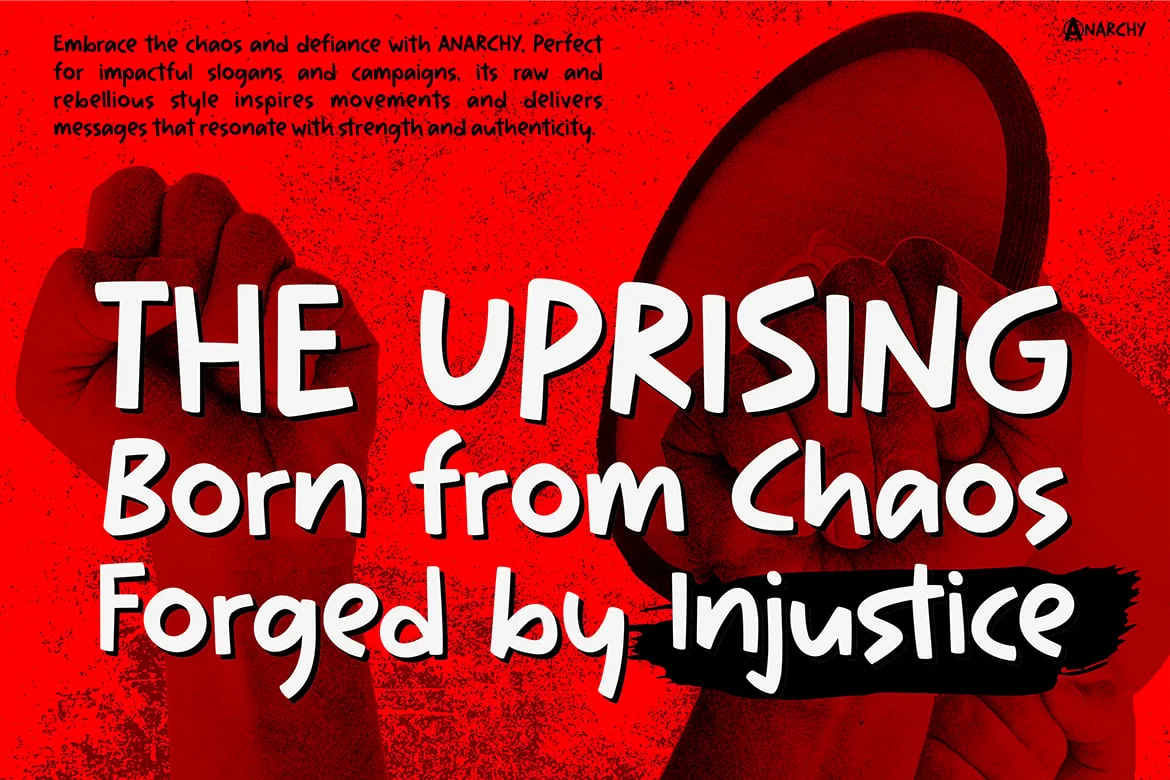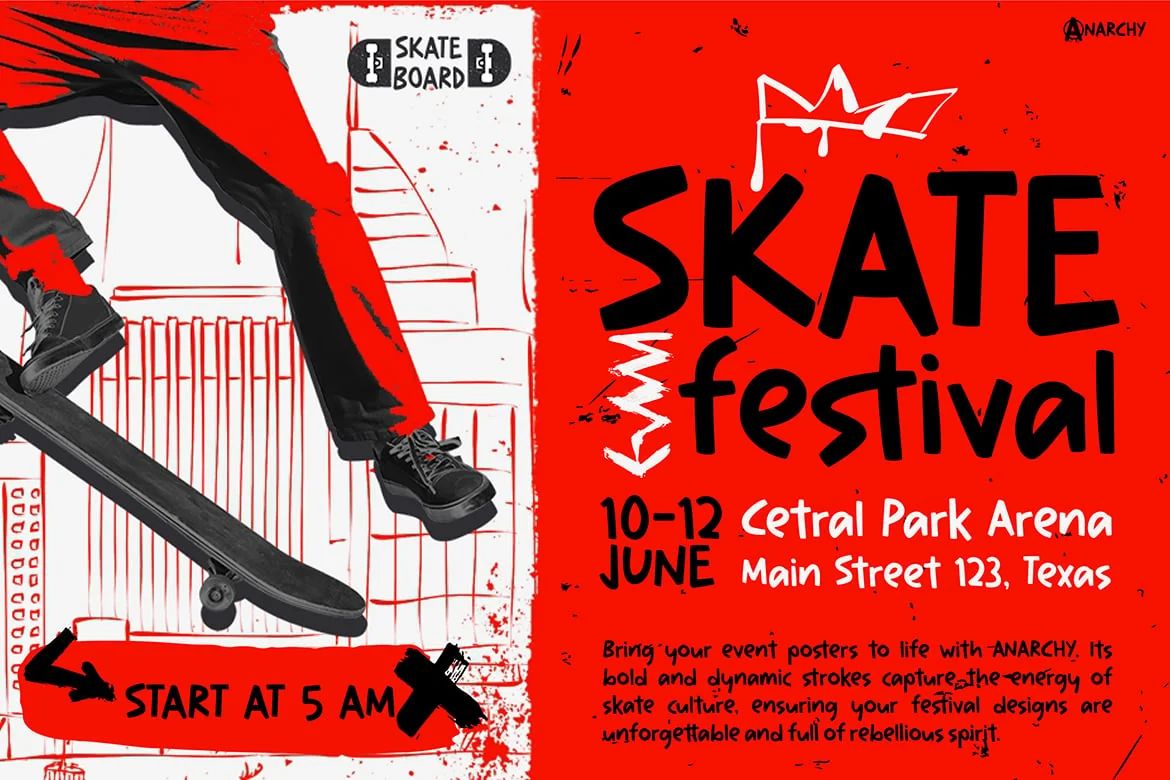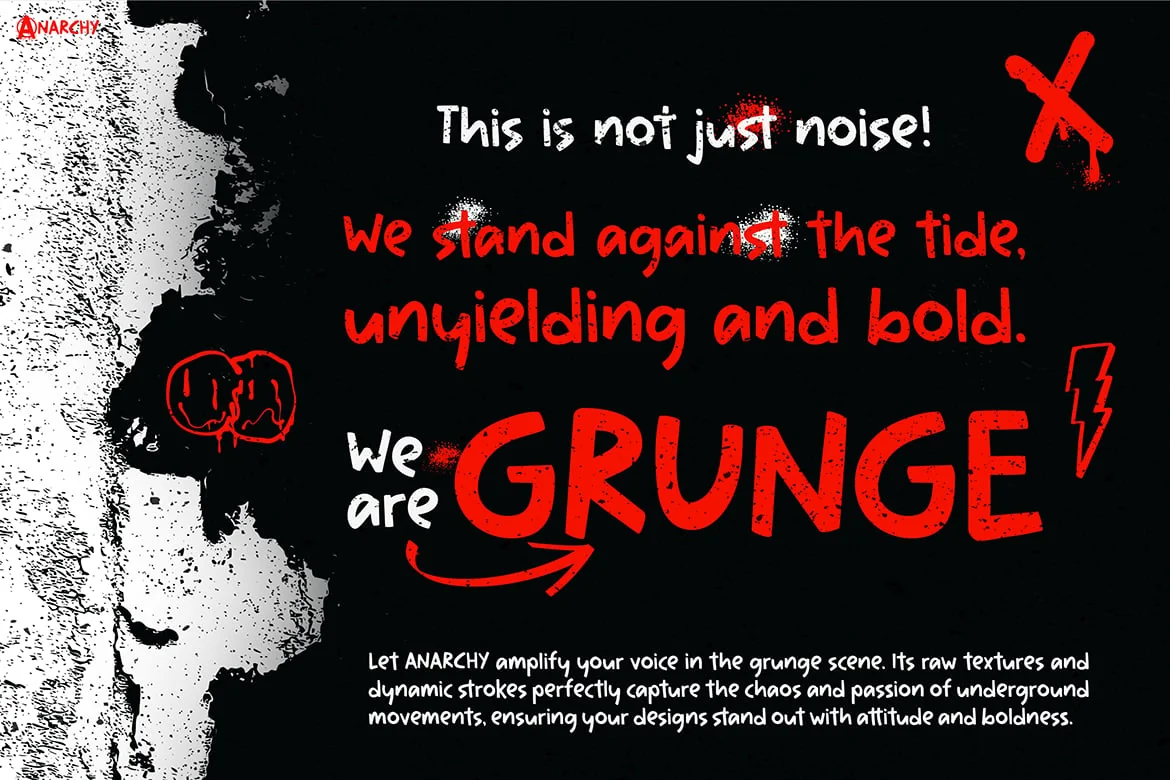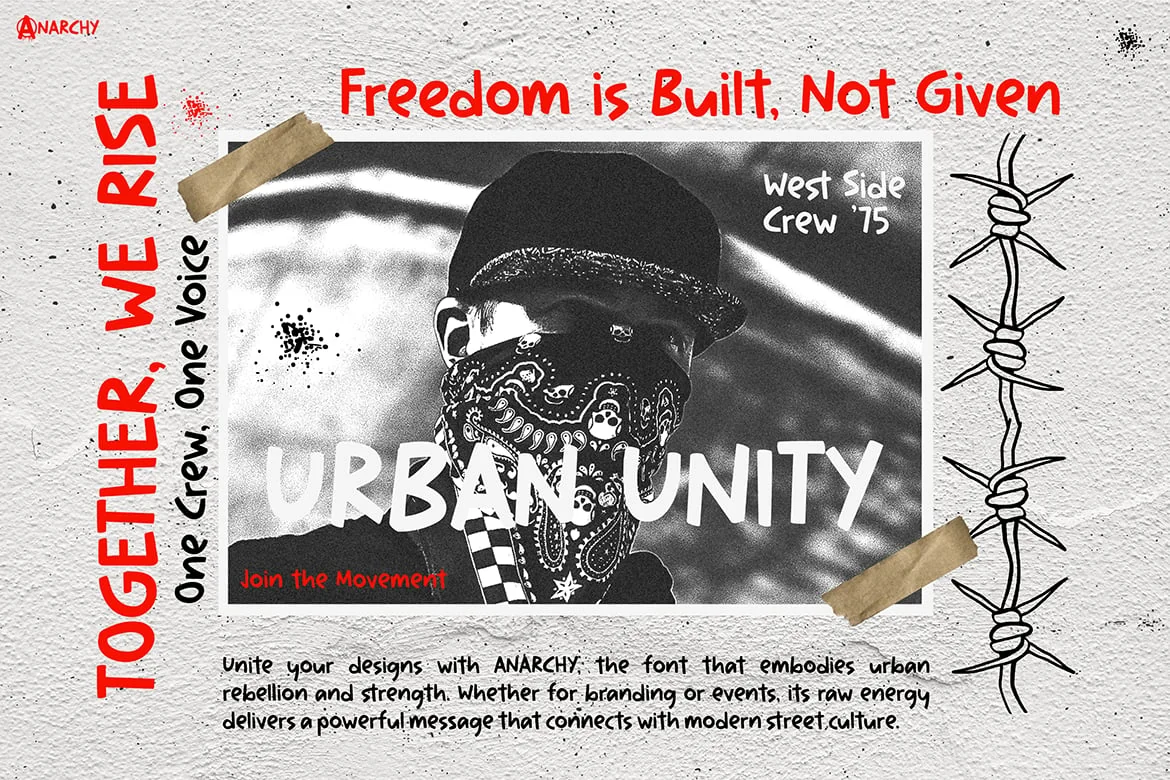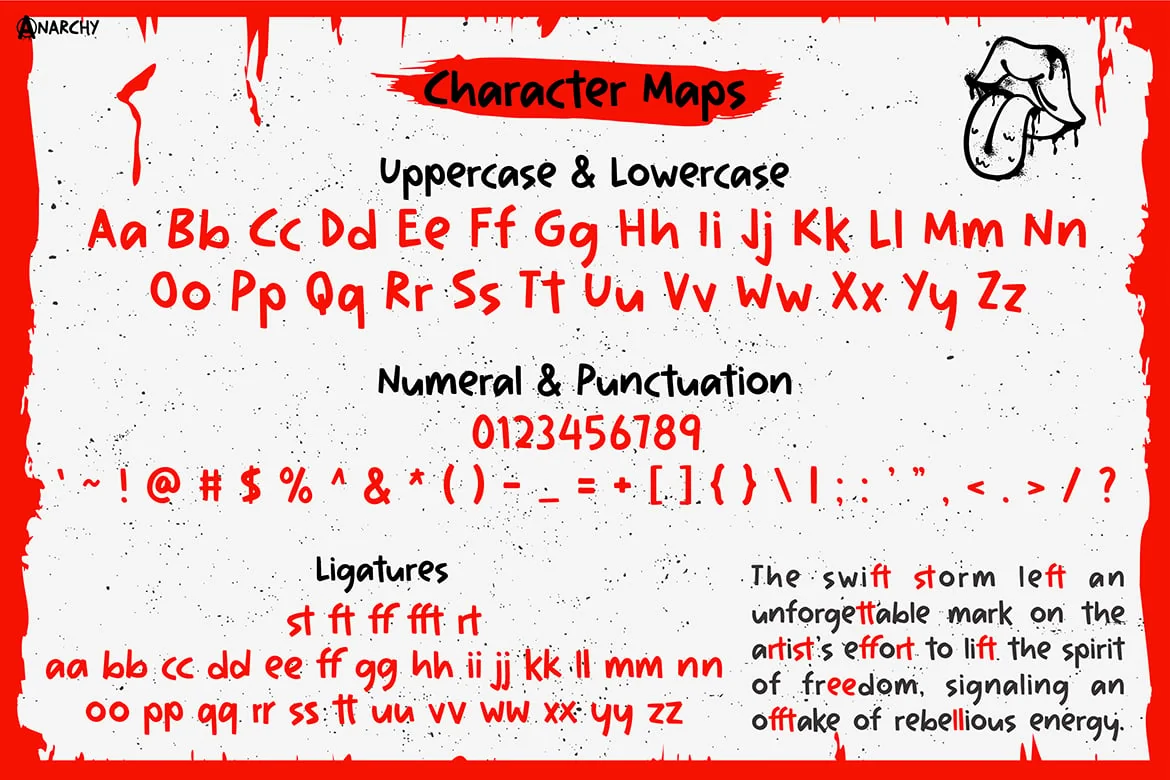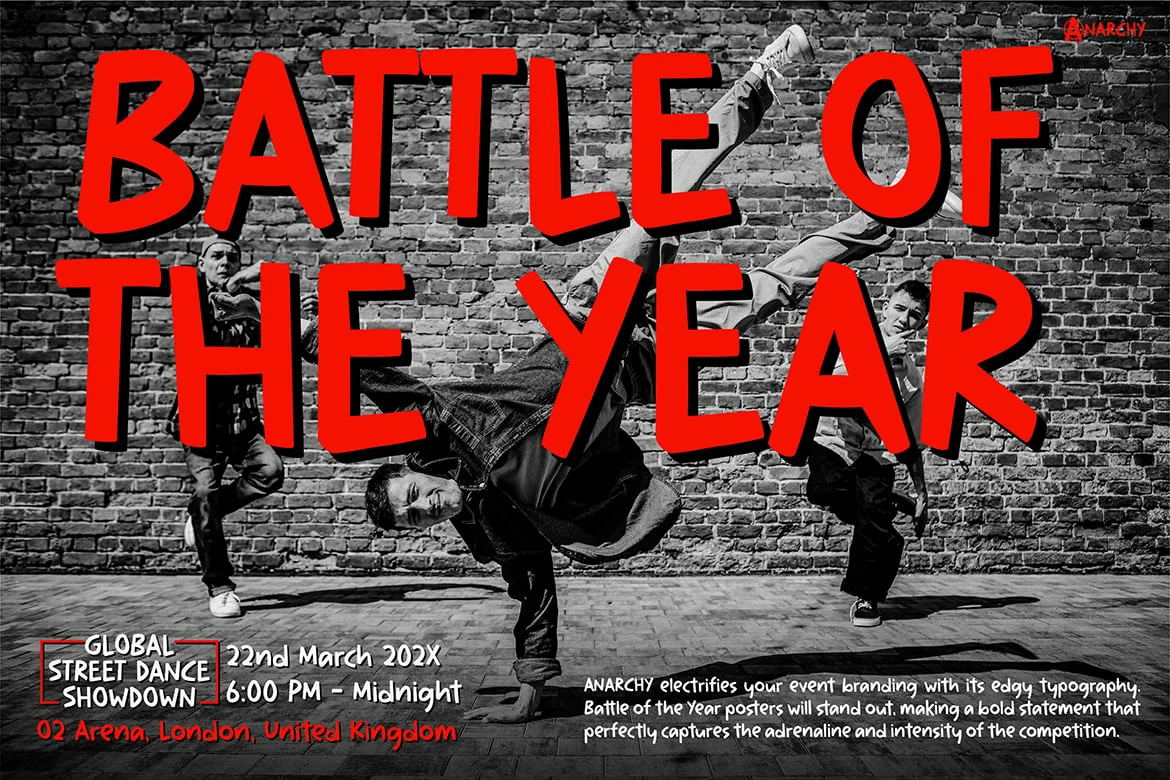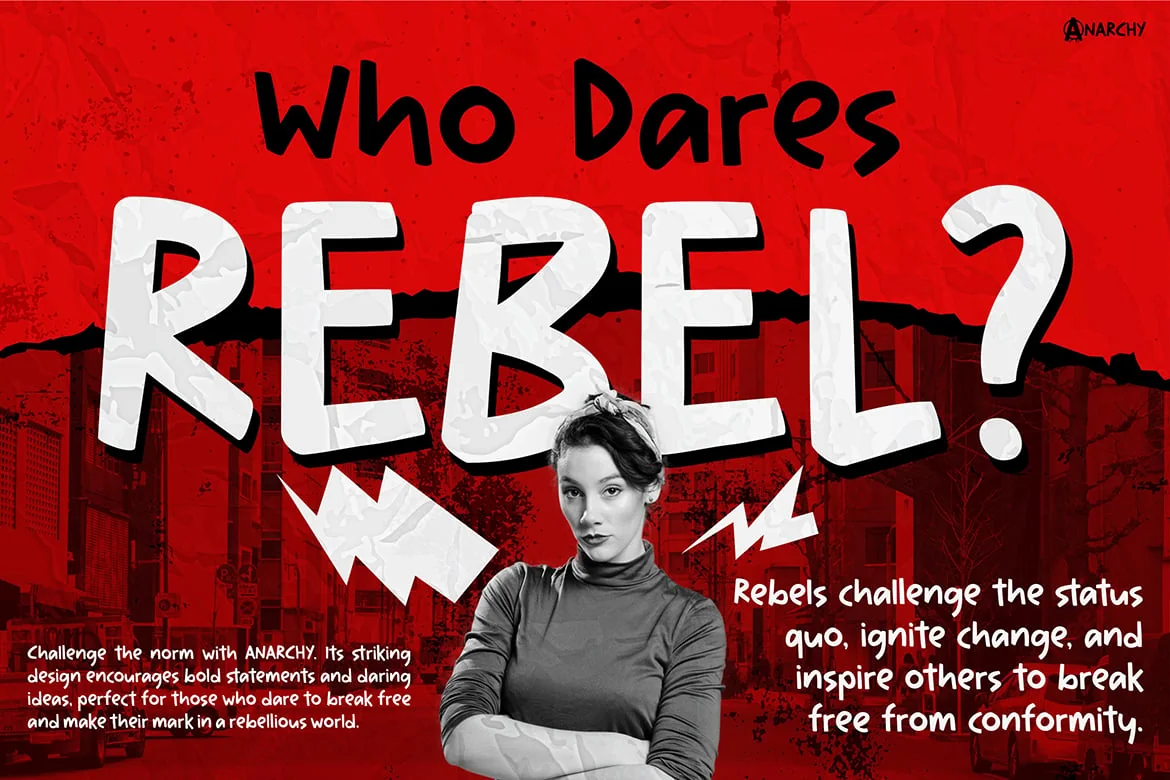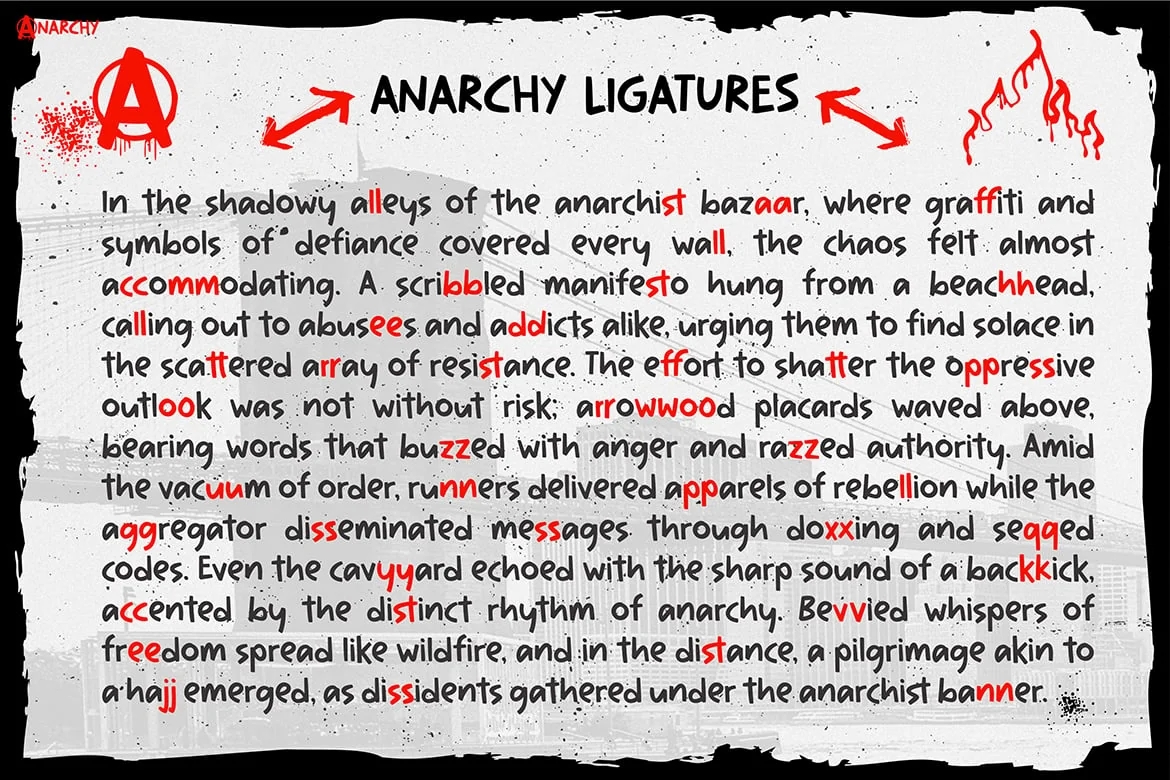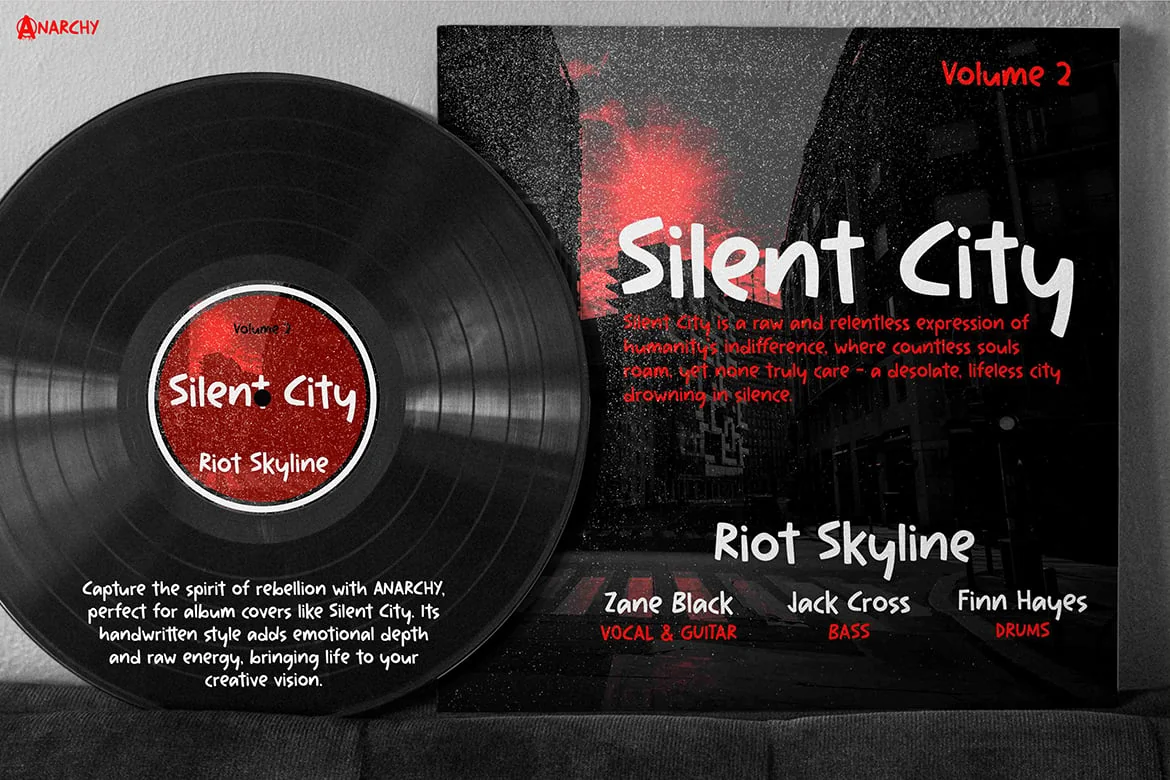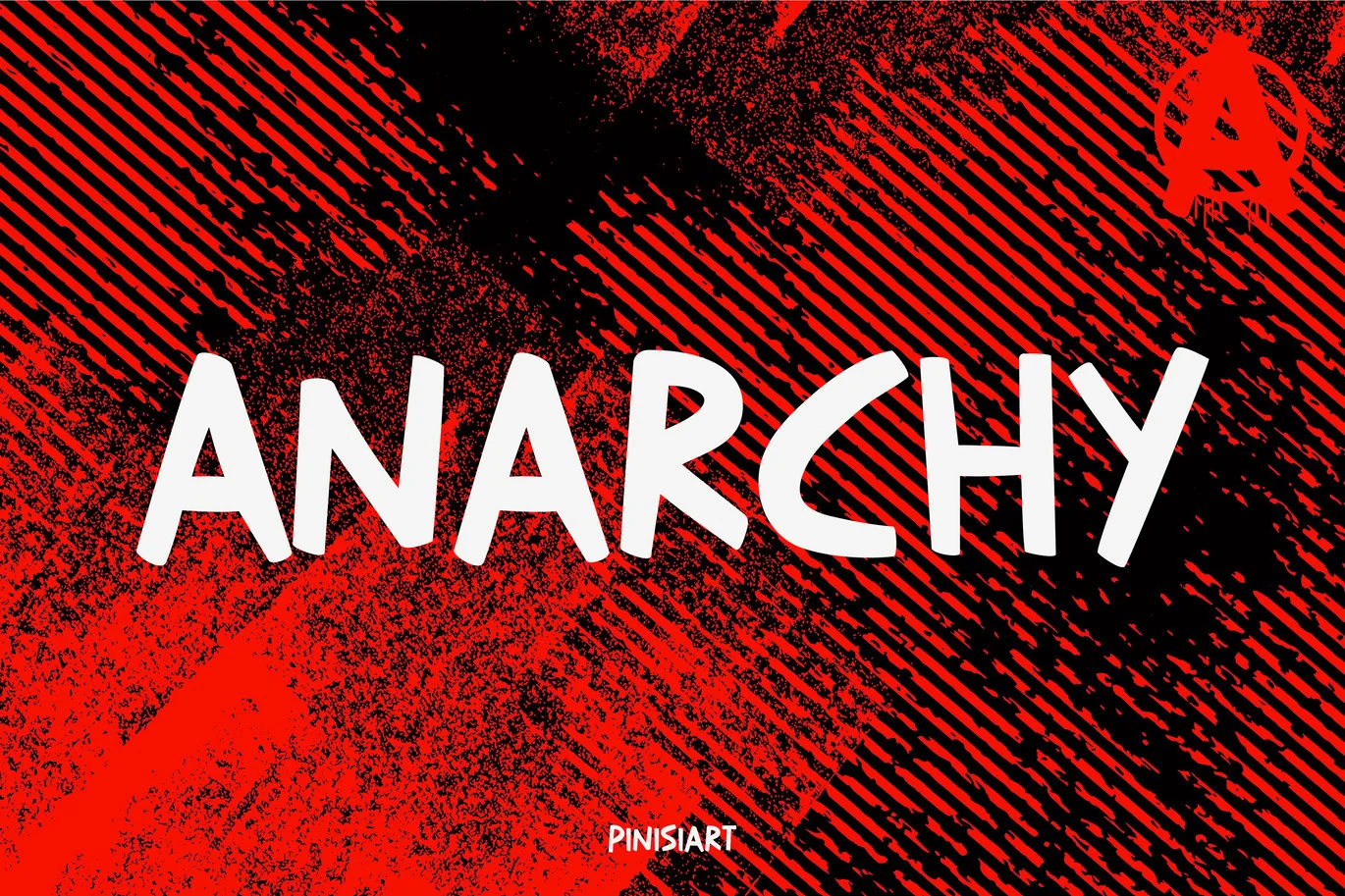
Rebel Music Font – Anarchy
Anarchy: Chaotic, Rebellious, and Unconventional
Anarchy is a daring, grunge-inspired font that embodies rebellion and raw energy. Its edgy, distressed letterforms evoke the spirit of revolution and nonconformity, making it perfect for punk rock designs, underground branding, and bold statement pieces. If you’re creating designs that demand attention and scream individuality, Anarchy is your go-to choice.
Punk rock album covers, rebellious branding, underground zines, edgy poster designs, protest banners, skateboarding events, grunge-inspired apparel, dystopian movie titles, street art campaigns, anti-establishment slogans, energetic social media content, hardcore band merchandise, urban graffiti artwork, bold editorial spreads, and creative festival promotions.